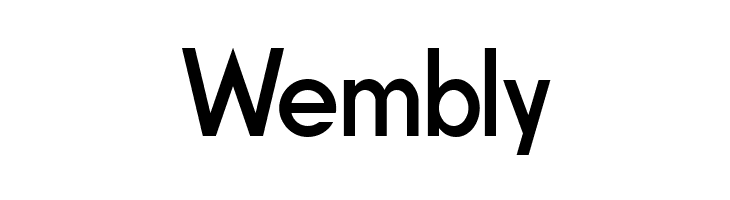
A playful, decorative font with floral elements and bold, artistic letterforms.
A bold, modern sans-serif font with excellent legibility and uniform stroke width.
A modern, italic sans-serif font with a clean and dynamic style.
A modern sans-serif outline font with clean lines and balanced proportions.
A modern sans-serif outline font with an italic style, offering a clean and dynamic look.
An elegant script font with intricate swirls and flourishes, perfect for formal designs.
A hand-drawn, narrow font with a playful and organic style.
A modern sans-serif font with clean lines and uniform stroke widths.
A modern sans-serif font with clean lines and a slightly condensed structure.
Bold, condensed font with thick strokes and narrow letterforms.
A bold, condensed font with a modern and impactful style.
A modern, geometric sans-serif font with uniform strokes and balanced proportions.
A bold, modern sans-serif font with geometric lines and strong presence.
A bold, modern sans-serif font with geometric lines and uniform width.
A sleek, modern sans-serif font with clean lines and balanced proportions.
A modern, geometric sans-serif font with uniform strokes and clear characters.
A bold, 3D sans-serif font with a modern, geometric style.
A bold, 3D sans-serif font with a modern and impactful design.
A bold, geometric font with futuristic cut-out shapes.
A bold, geometric font with a futuristic, outlined style.
A futuristic, geometric font with angular, blocky letterforms.
An ornate Blackletter font with intricate detailing and a medieval aesthetic.
A fluid, handwritten script font with elegant curves and varying stroke thickness.
A bold, decorative font with expressive strokes and a script-like, artistic style.
A bold, expressive script font with a marker-like, handwritten style.
A bold, handwritten-style font with expressive, dynamic curves.
A bold, marker-style font with a playful and dynamic appearance.
An elegant, calligraphic font with high contrast and ornate details.
An elegant, calligraphy-inspired font with ornate details and flowing curves.
A bold, geometric font with a double-line structure and futuristic appeal.
A playful, decorative font with bold, rounded characters and whimsical flair.